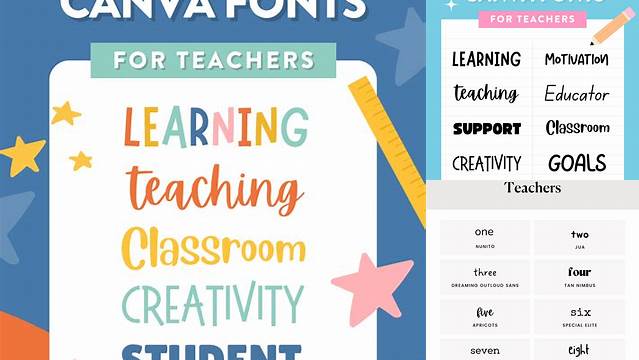
Awesome Canva Fonts For Classroom Posters
Hey guys! Let's talk about making your classroom posters pop! We all know that a great poster can grab students' attention and make learning more fun. And what's a poster without some killer fonts? That's where Canva comes in, offering a ton of amazing fonts to make your classroom posters stand out. From playful and whimsical to clean and professional, there's a perfect font for every subject and age group. In this article, we'll dive deep into the world of Canva fonts for classroom posters, exploring some of the best options, how to use them effectively, and some handy tips to make your posters the talk of the school! Get ready to unleash your inner designer and create posters that inspire and engage. We will uncover how you can leverage Canva to make the best classroom posters.
Top Canva Fonts for Elementary School Posters
Alright, let's get started with some fantastic font choices perfect for elementary school posters. When designing for younger students, clarity and visual appeal are key. You want fonts that are easy to read, fun, and engaging. Forget those boring, stuffy fonts – we're aiming for vibrant and exciting! Canva has an amazing selection of fonts that fit the bill perfectly. Consider fonts like Bubblegum Sans, which is a cheerful, rounded font that's great for headlines and titles. It's friendly and approachable, making it perfect for welcoming messages or classroom rules. Then there's Comic Neue, a modern take on the classic Comic Sans, but far more stylish and readable. It's informal and fun, making it ideal for stories, activity instructions, or anything aimed at capturing kids' interest. Another excellent choice is Permanent Marker, which mimics handwriting. It's fantastic for adding a personal touch to your posters, creating a feeling of warmth and connection. Use it for inspirational quotes or student-created content. Remember, the goal is to make your posters visually appealing and easy for young students to understand. Ensure the font size is large enough for everyone to read, and keep the text concise. Combine these awesome fonts with bright colors and playful graphics to create posters that will capture their attention from the moment they enter the classroom. These are just a few examples of the many great Canva fonts available. Explore and experiment to find what works best for your specific needs and classroom style. The right font can transform a simple poster into an effective learning tool.
Why Bubblegum Sans and Comic Neue are Classroom Favorites
Bubblegum Sans has a unique charm that appeals to kids. Its rounded letterforms make it incredibly inviting. The font's bubbly appearance suggests fun, playfulness, and approachability, immediately drawing children in. It’s perfect for headings, encouraging kids to engage with the poster's content. When using Bubblegum Sans, consider pairing it with bright, cheerful colors and fun illustrations to make it even more appealing. Comic Neue, on the other hand, offers a contemporary twist on a familiar font. Its design is designed to be more refined and easier to read than the original. This makes it suitable for larger blocks of text without causing eye strain. This font is a great option if you want to communicate information in an engaging and accessible manner. The semi-casual design of Comic Neue makes it a great choice for a variety of classroom topics. It is perfect for instructions or short paragraphs, as it maintains a friendly, non-intimidating feel. The right font choice can make a huge difference in your classroom poster's effectiveness. Be mindful of the message you are trying to convey and select the font that best reflects this intention.
Combining Permanent Marker with Other Fonts
Permanent Marker brings a personal touch to your classroom posters. It's like a friendly note written directly by a teacher. To avoid overwhelming the viewer, you can pair it with a clear, easy-to-read font for the body text. For example, use Permanent Marker for titles or quotes that highlight the essence of the poster, while using a font such as Open Sans or Roboto for the main body. This contrast provides visual interest and helps to guide the eye. By pairing a hand-written font like Permanent Marker with clean, professional fonts, you're adding a layer of personality while preserving readability. In terms of design, imagine a poster featuring a quote written in Permanent Marker, surrounded by neat bullet points listing key ideas in Open Sans. The handwritten text catches the eye, whereas the bullet points provide accessible information. This mix is great for creating a sense of warmth and connection with the students. Think about using Permanent Marker for the names of the student of the month or to include a personalized message. Keep in mind that it should be used sparingly, as using too much of it can make your poster look messy. Its versatility makes it a valuable asset in any teacher's design toolkit.
Canva Fonts for Middle School Posters
As students move into middle school, their tastes and preferences evolve. The fonts you use for your posters should reflect their growing maturity and sophistication. You can still have fun, but the designs can be a bit more refined and trendy. Canva offers a range of fonts that are perfect for this age group, blending readability with a touch of personality. Consider Poppins, a geometric sans-serif font that's clean, modern, and highly readable. It works well for conveying important information in a clear, concise manner. Then there's Montserrat, another popular sans-serif known for its versatility. It's elegant, yet approachable, suitable for a wide range of topics. For headlines, you might consider a font like Bebas Neue, a tall and condensed sans-serif that's great for grabbing attention. Remember, the aim is to create posters that are visually appealing, easy to understand, and that resonate with the students. Experiment with different font combinations and styles to find what works best for your specific needs and classroom environment. Be open to trying out different things and don't be afraid to change your approach. The key is to keep your posters fresh, engaging, and relevant to the students. Using the right Canva fonts can make your posters more effective and enjoyable for everyone.
Poppins and Montserrat: The Perfect Blend of Readability and Style
Poppins and Montserrat are both excellent choices because of their versatility and readability. Poppins is a geometric sans-serif font that provides a clean, modern look. Its straightforward design makes it very easy to read, which is great for conveying information. Use it for body text and headlines to provide a consistent and professional feel. Because of its simple appearance, Poppins is versatile and can be used across different subjects and topics. You can pair it with a more expressive font for headlines or titles. Montserrat is another fantastic sans-serif font that brings elegance. Its clean lines and balanced letterforms create a polished look. It is designed for both headlines and body text. The font is stylish, but it maintains a high degree of readability, making it useful for a variety of contexts. It works wonderfully when you need a font that is both visually appealing and easy to read. Experiment with font pairings to enhance the overall look of your posters. Consider using Poppins for the body text and Montserrat for the titles to create visual interest. Or, use Poppins for important information, while using Montserrat for key information. Together, these fonts offer a professional look that is still engaging, suitable for middle school students.
Using Bebas Neue for Attention-Grabbing Headlines
Bebas Neue is a fantastic font to make your headlines stand out. Its tall, condensed letterforms give it a distinctive presence that immediately grabs the viewer's attention. It is perfect for headings and titles. Use it for key phrases, or important information that you want to emphasize. Because it is tall and bold, Bebas Neue is very effective for creating a strong visual impact. When you use this font, keep in mind that readability is key. Use it sparingly to ensure that the headlines don't overwhelm the rest of your poster. Pair Bebas Neue with a font that is easy to read for the body text. This contrast will help guide the viewer's eye and make the information more accessible. Consider using Poppins or Montserrat to complement Bebas Neue. You can also experiment with colors and backgrounds to enhance the impact of your headlines. Remember, the goal is to create posters that attract attention and effectively convey important messages. When using Bebas Neue, think about the design and content. The right combination will attract attention and get your message across in an effective way.
Canva Fonts for High School Posters
High school students have even more refined tastes, so your poster fonts should reflect that. You can use fonts that are professional, stylish, and slightly edgy. Canva offers a variety of fonts for high school posters. Consider fonts like Lato, a balanced sans-serif that is clean and modern. It's highly readable and versatile, making it suitable for a wide range of subjects. Oswald, a condensed sans-serif, is another excellent choice, offering a modern look that's perfect for headlines and titles. Also, look at Raleway, a stylish and elegant sans-serif with a variety of weights and styles. The key is to create posters that are visually appealing, easy to understand, and resonate with older students. Experiment with different font combinations and styles to find what works best for your specific needs. Using the right Canva fonts can make your posters more effective and enjoyable for everyone, creating a more engaging learning environment.
Lato: A Versatile and Professional Choice
Lato is an amazing font for high school posters because of its versatility and professional look. Its balanced design and clean lines create a sense of clarity, making it easy for students to focus on the content. Its versatility lets you use it for a wide range of subjects. Whether it is science, history, or art, Lato fits perfectly. You can use this font for body text and headlines. When using Lato, consider combining it with other fonts to provide more visual interest. It is a great companion font because it is so adaptable. It can easily be combined with a more stylized font for headlines. This contrast allows you to emphasize the key information. The font is easy to read at different sizes, so you can use it for large posters or smaller handouts. It will ensure that your messages are clear, professional, and engaging. So, if you want a font that provides a professional look while remaining versatile, Lato is a great choice.
Oswald: A Modern Look for Headlines and Titles
Oswald provides a modern appearance for headlines. Its condensed, sans-serif design has a bold presence, that grabs the reader's attention. It is perfect for titles, headings, and key phrases. When you use Oswald, the impact will be strong. It's great for highlighting important information, so students know what the poster is about. This font is highly readable. This font is suitable for posters with a lot of text, so the audience can quickly grasp the information. You can combine Oswald with other fonts to create a balanced design. Pair it with a readable font, such as Lato or Raleway, for the body text. This contrast will help guide the viewers' eyes. Consider experimenting with different font weights and colors to enhance the visual appeal of your headlines. Bold colors with Oswald can create an eye-catching visual. It is a great choice to add style and visual interest. When you use Oswald, you can create visually appealing posters that will attract attention and effectively convey important information to high school students.
Raleway: Stylish and Elegant Sans-Serif
Raleway has a stylish and elegant style that's very popular. With a wide variety of weights and styles, this font is very adaptable to a range of design needs. Because of its clean lines, and modern appearance, Raleway is suitable for high school posters. Its versatility means that you can use it for titles, headings, and body text. It is very readable, which makes it great for communicating information quickly. You can use it in different subjects, from science to art. When designing your posters, try using different weights and styles of Raleway to add visual interest. You can mix the regular weight for body text with a bold or semi-bold weight for headlines. You can enhance the visual appeal with background colors. This contrast will make your design even more engaging. The different styles of Raleway will make the poster more dynamic. This font can enhance your message. Its elegance adds a touch of professionalism, making it a great choice for high school students. Consider experimenting with different color combinations to see what works best. This font can help create beautiful posters.
Tips for Choosing the Right Canva Fonts
Choosing the right fonts can seem daunting, but with these tips, you'll be creating awesome posters in no time. First, consider your audience. What are their preferences? What age group are you designing for? Knowing your audience will help you narrow down the font choices. Secondly, think about the message you want to convey. Is it serious, fun, or educational? The font you choose should match the tone of your message. Thirdly, prioritize readability. A font may look beautiful, but if it's difficult to read, it's useless. Make sure the font is easy to read from a distance. Lastly, try different font combinations. Pair fonts to create contrast and visual interest. Canva offers a variety of tools to help you make sure your poster is just right! Think about the overall feel you want to create. These tips will help you choose the perfect Canva fonts for your classroom posters. Be sure to also make it easy to read and visually appealing. Following these guidelines will help you create great classroom posters. Remember, practice and experimentation are key.
Consider Your Audience: Tailoring Fonts to Age Groups
When selecting fonts for classroom posters, consider your audience. Tailoring your font choices to the age group will make your posters more appealing and effective. For elementary school students, opt for playful, easy-to-read fonts like Bubblegum Sans or Comic Neue. These fonts are friendly and approachable, immediately engaging young learners. With middle school students, you can select fonts that are more refined, like Poppins or Montserrat. These fonts provide a professional feel, while still keeping the posters interesting. High school students' tastes will evolve. You can use fonts that are professional, stylish, and have an edge, such as Lato or Oswald. The font should match the preferences of the students, creating a design that feels relevant to them. Understanding your audience will help you create posters that are relevant and effective. Knowing the audience will ensure that your posters will catch the attention of the students. Always remember to consider your audience when creating the best posters.
Matching the Tone: Fonts that Convey Your Message
Select a font that conveys the message you want to deliver. The font choice has a huge impact on how the audience perceives your poster. If you are going to create a poster to share a friendly tone, select playful fonts, such as Bubblegum Sans. If your poster is about a more serious topic, choose a more professional font, such as Lato or Poppins. The combination of the font and the message will enhance the reader's engagement. The message will become clearer and more memorable if the tone is consistent. For example, if you want to create a poster about the importance of recycling, using an eco-friendly-looking font can help send the message. Matching the right font with the message will strengthen your overall message and improve its impact. The audience will perceive your message. Carefully selecting a font that matches the tone will give the message the greatest effect.
Prioritizing Readability: Ensuring Your Message is Clear
Prioritize readability when choosing your fonts. Even the most beautiful font is useless if it's difficult to read. Ensure the font is easy to read from a distance, so students can grasp the content. Select clear and legible fonts, especially for the body text. Avoid fonts that have intricate designs or complex letterforms. When using bold and italic fonts, ensure that they are still easy to read. Test your poster by printing it out and viewing it from a distance. If the text is unclear, it needs adjustment. Consider the font size, as well. Ensure that the text size is large enough for the audience to read. In the process, you will create effective posters, while keeping the message easy to read. Remember, the aim is to communicate ideas clearly. Prioritizing readability is critical for making your posters effective. With readability, the audience will understand the message.
Experimenting with Font Combinations: Creating Visual Interest
Experiment with different font combinations to create visual interest and make your posters more engaging. Combining fonts with different styles can add depth and contrast. For example, pair a clean, sans-serif font like Poppins with a more decorative or handwritten font for the headlines. This juxtaposition can make your design more dynamic and appealing. When choosing font combinations, ensure that the fonts complement each other without clashing. The font styles should work together. It helps to create a sense of balance. Try using one font for headlines and another for the body text. Use different font weights and styles. Experiment with different color combinations to see which ones work best. The goal is to find combinations that make the posters more appealing. With the right combination, your posters will be visually interesting. Your posters will be more effective and more engaging. With that, experimentation can lead to creative and effective designs.
Best Practices for Using Canva Fonts in Posters
Once you've selected your fonts, there are some best practices to keep in mind to maximize their impact. First, pay attention to font size and spacing. Make sure the text is large enough to read from a distance and that there's enough space between lines and letters. Next, use color effectively. Choose colors that complement your fonts and create visual interest, but avoid colors that make the text difficult to read. Always ensure that the text is legible against the background. Thirdly, create a visual hierarchy. Use different font sizes, weights, and colors to guide the reader's eye and highlight the most important information. Lastly, maintain consistency. Use the same fonts and styles throughout your poster to create a cohesive and professional look. By following these best practices, you'll create posters that are not only visually appealing but also effective in communicating your message. With some knowledge of Canva fonts and design, your posters will definitely be a hit! It's time to get started!
Font Size and Spacing: Ensuring Readability
When choosing the font size and spacing, ensure that the text is readable. The font size should be large enough for students to read from a distance. Avoid the text size being too small. Adjust the size based on the size of the poster and the viewing distance. Pay attention to the spacing between the lines, or line height, to make it comfortable to read. Adjust the line height to make the text easy to read. There should also be enough space between letters (letter spacing). Make sure the text isn't cramped. Use headings and subheadings to break up the text and make it easier to digest. Consider the overall design of your poster. The correct font size and spacing will make the text easy to read. With the proper font size and spacing, you can make your posters very effective.
Effective Color Usage: Enhancing Visual Appeal
Color can make a big difference in the visual appeal. When selecting colors, choose colors that complement the fonts and enhance the message. Use colors to create visual interest, but avoid colors that make the text difficult to read. Contrast is important. Choose colors that are easy to read against the background. Always make sure there's a contrast between the text and the background. When creating a color scheme, you can use Canva's color palette tools. These can help you select matching colors. Experiment with different color combinations to see what looks best. Think about the emotion you want to convey. Use colors that match the tone of your message. Color will make your posters more effective and engaging. With the right colors, your posters will be eye-catching. You can create posters that are both informative and visually striking.
Creating a Visual Hierarchy: Guiding the Reader's Eye
When you create a visual hierarchy, you guide the reader's eye. Use different font sizes, weights, and colors to highlight the most important information. Make the title of the posters the most prominent text. Use larger font sizes for headings, and subheadings. This will separate different sections. Use bold or italic fonts to draw attention to important words or phrases. Use color to emphasize key information, but don't overdo it. The goal is to create a structure that allows the viewer to quickly scan and understand the information. Ensure that the hierarchy is logical, so the viewer can follow the flow of information. Think about the order of the information. The most important information should be the first thing the reader sees. A well-designed visual hierarchy will make your posters more effective. The students will quickly grasp the main points. Create posters that are easy to understand. With the right visual hierarchy, you can guide the viewer's eye and create more effective posters.
Maintaining Consistency: Creating a Cohesive Look
Consistency is very important for a good design. Use the same fonts, styles, and colors throughout your poster to create a professional look. It enhances the overall design and makes it more appealing. When you create a series of posters, it is very important to keep a consistent style. This will help your posters be instantly recognizable. Stick to a consistent color palette and use the same font and style for all of your headings. You can also use the same font and style for all of your body text. When you maintain the same style, you can create a look that is both visually appealing and memorable. With the same fonts, styles and colors, you can create a cohesive look that is professional. With consistency, your posters will create a great impression.
Canva Font Resources and Inspiration
To truly unlock your potential with Canva fonts, explore the resources available and draw inspiration. Canva's website offers a vast library of fonts, along with guides on how to use them. Explore Canva's font combinations. Get inspiration from other teachers and designers. Use the suggestions to create your own poster. Stay up-to-date on the latest design trends and experiment with different styles. Don't be afraid to try new things and find your own unique style. Remember, the best posters are not just visually appealing; they are also effective communication tools. By using Canva fonts effectively, you'll create posters that engage and inspire your students. Remember to stay creative and always look for opportunities to learn and improve your design skills. With a little effort, you can create amazing classroom posters that will make a real difference in your students' learning experience!
Canva's Font Library: Exploring the Options
Canva provides a vast font library. The library offers many font choices. Explore the different font categories. It's easy to discover new fonts. The library is a useful source of inspiration. Experiment with different font combinations. You can also filter the fonts based on your needs. You will find the perfect font for your classroom posters. There are many choices, so the best way to start is by exploring the options. You can easily discover new options. Spend time discovering fonts, and you will be prepared to create fantastic posters. Canva is a useful tool to create great posters.
Finding Inspiration: Learning from Other Designers
Learning from other designers is a great idea. See what other designers are doing. Take notes on the design and the font combinations. Use these examples as a guide to create your own design. Explore online galleries and social media. This will help you see other designs. Consider joining design communities and forums. Ask for feedback. By learning from others, you can improve your skills and find new ideas. Inspiration will help you. This will inspire you to create posters. You can find a lot of inspiration from different designers.
Staying Up-to-Date: Following Design Trends
Keep up-to-date with design trends. Watch for new fonts and design styles. Stay current with what's trending. This will help you create posters. You will develop a great design sense. By following these design trends, you can create the most relevant and modern posters. The learning process will improve your overall abilities. This will make your posters more effective.